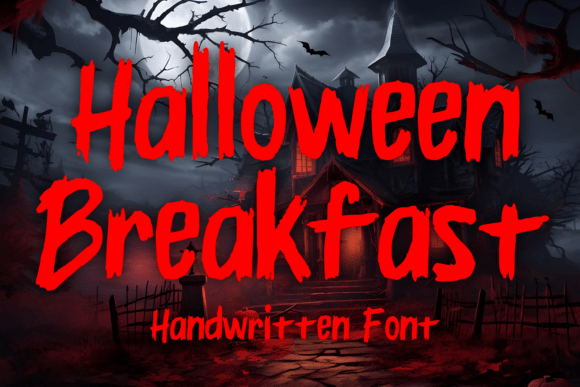
A Deliciously Spooky Font for Your Horror Needs
As a designer, have you ever found yourself searching for the perfect font to bring a touch of eerie elegance to your next project? Maybe you’re brainstorming ideas for a Halloween-themed merchandise line, or perhaps you’re looking to give your scary book cover a hauntingly good vibe. Whatever your creative endeavor, we’re about to serve up a font that’s sure to satisfy your spooky cravings: the Halloween Breakfast Font.
This cool horror font is inspired by the dark delights of vintage horror movies, horror comics, and metal music. With its unique blend of macabre charm and vintage flair, the Halloween Breakfast Font is the perfect addition to any designer’s toolkit. Whether you’re working on a greeting card, a poster, or a sticker design, this font is sure to add a deliciously spooky touch to your creations.
Halloween Breakfast Font Key Features
- Font Family: A unique, spooky-themed font designed specifically for Halloween-themed applications.
- Unique Characteristics: The font features a mix of bold, playful, and eerie elements, making it perfect for Halloween-themed designs, invitations, and decorations.
Halloween Breakfast Font Review
Overall, I’m impressed with the whimsy of the Halloween Breakfast Font. ✨ The designer’s use of distressed textures and playful letterforms adds a charming, handmade feel to the typeface.
The font’s versatility is another strong point. It can be used for a wide range of designs, from spooky invitations to festive holiday decorations. The font’s bold, eye-catching style is sure to grab attention and add to the excitement of the Halloween season.
One of the standout features of the Halloween Breakfast Font is its customizability. The designer offers a range of options for customization, including different font weights, sizes, and colors. This makes it easy to tailor the font to fit the specific needs of your project.
- ⚠️ Limited support for non-English languages, which may be a concern for international designs
- ⚠️ Some users may find the font’s distressed texture to be too busy or overwhelming
- ⚠️ The font may not be suitable for high-end or professional designs, due to its playful and whimsical nature
Overall, I would recommend the Halloween Breakfast Font for designers looking to add a touch of Halloween magic to their projects. While it has some limitations, its unique style and customizability make it a great choice for anyone looking to create a spooky or festive design.
The Halloween Breakfast Font is perfect for creating spooky and playful designs for Halloween-themed events, parties, and decorations. It’s also great for adding a touch of whimsy to social media posts, invitations, and other digital content.